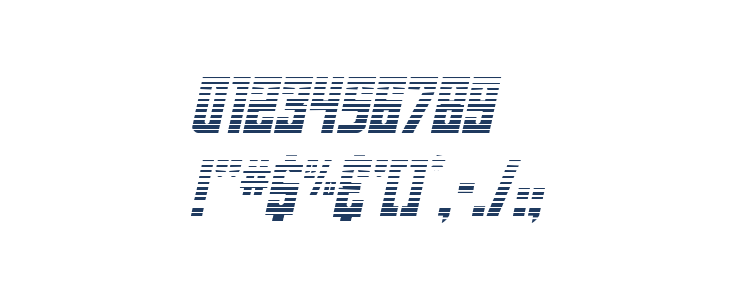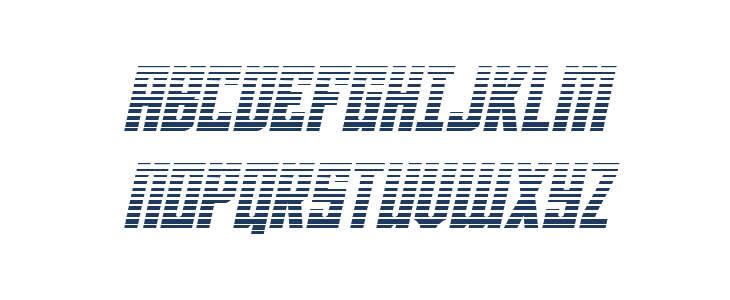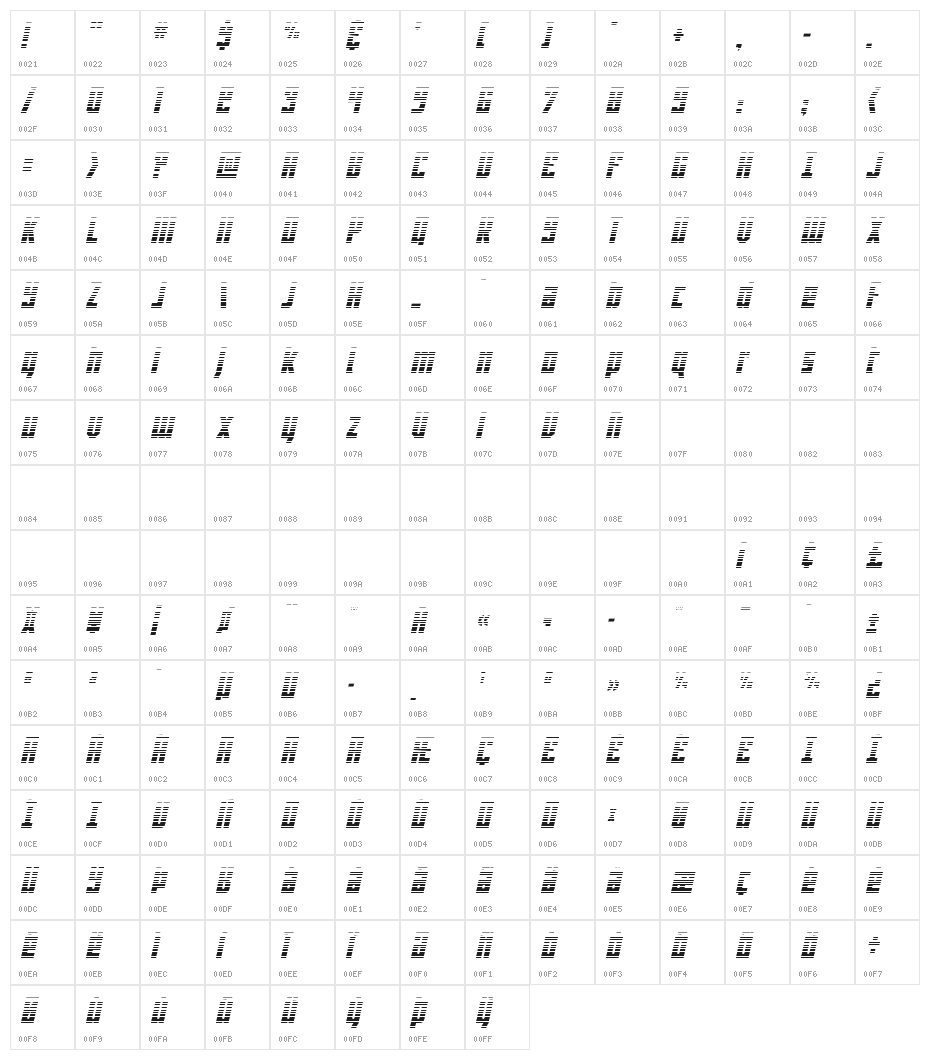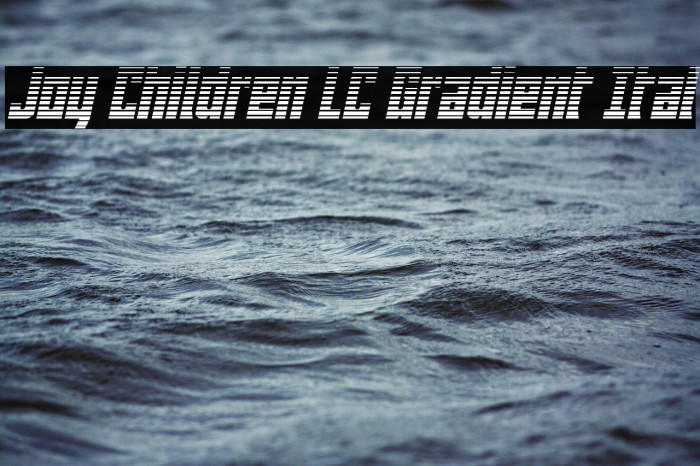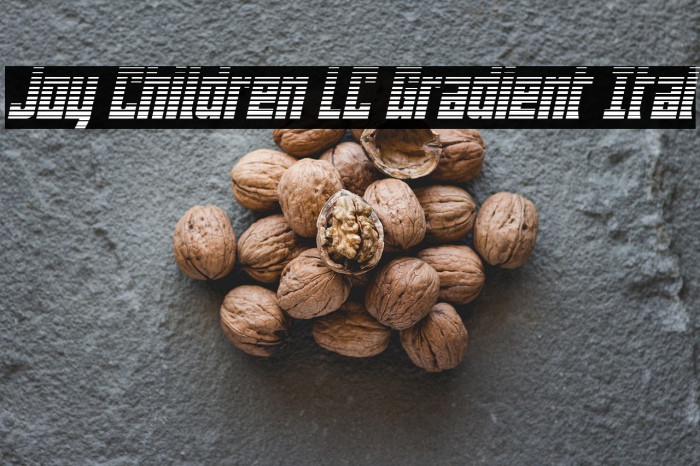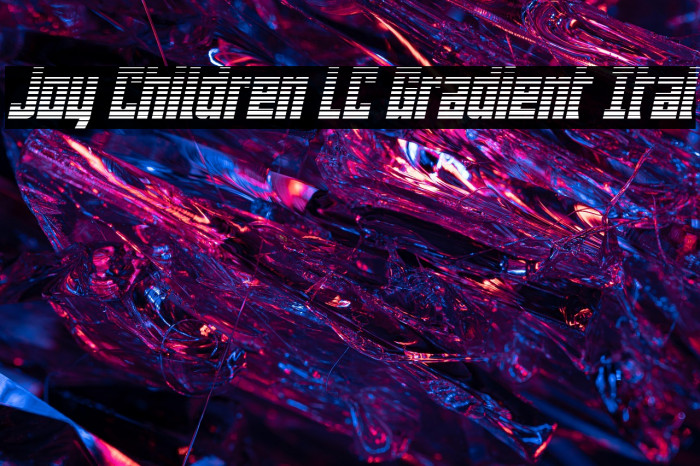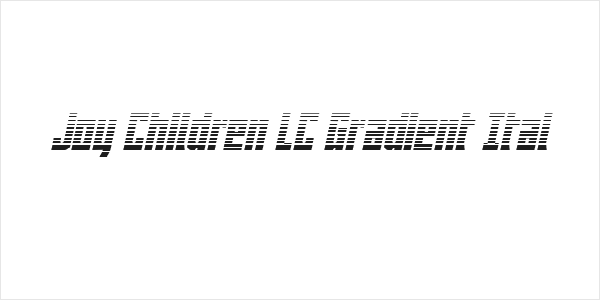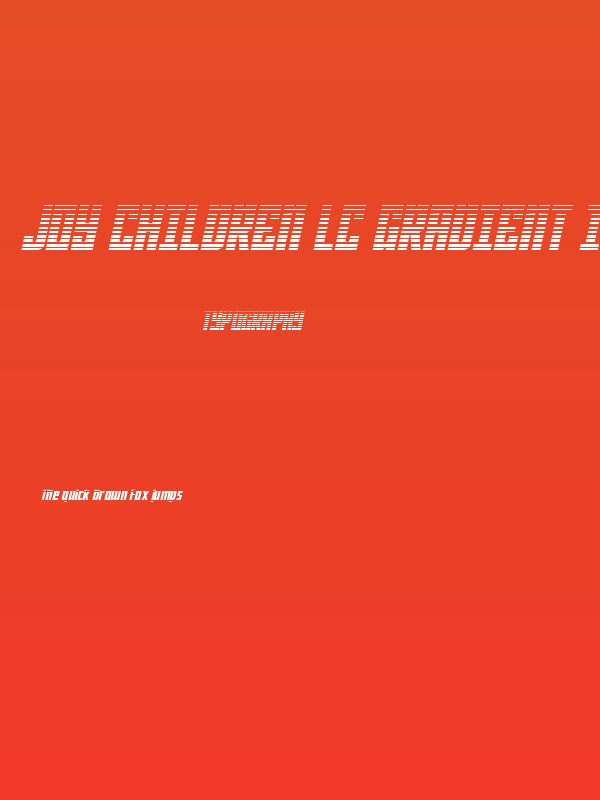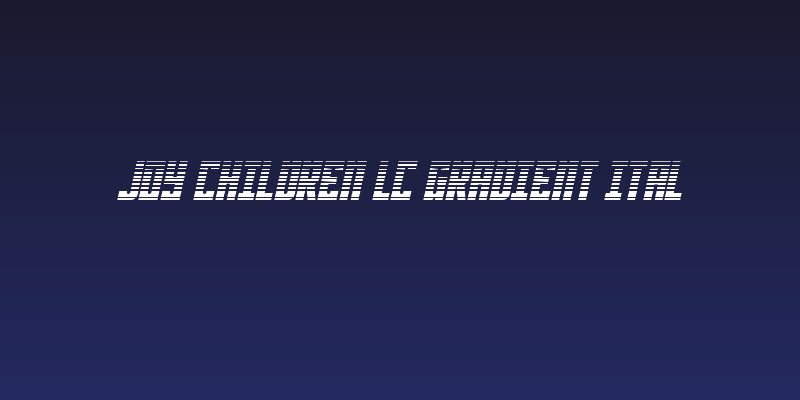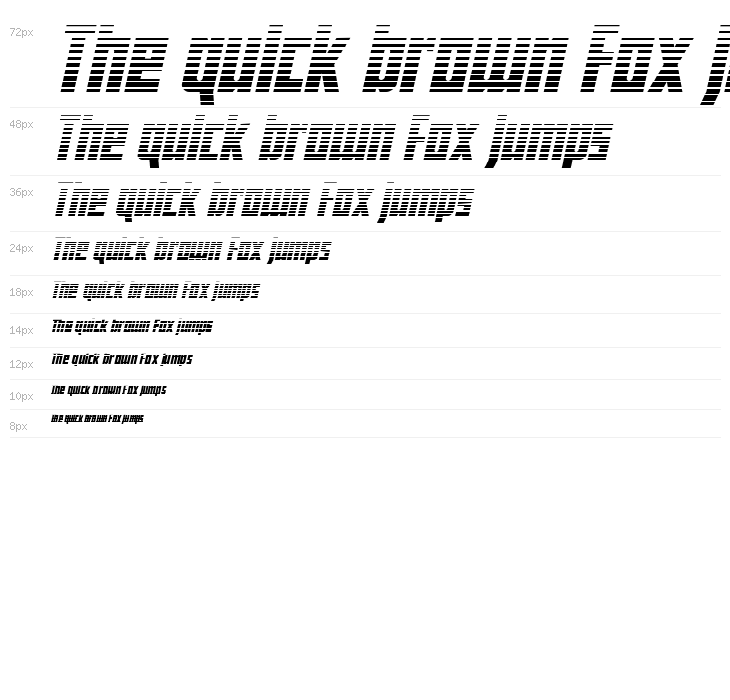
Joy Children LC Gradient Ital Font
Joy Children LC Gradient Ital Description
A stylized, italicized, striped font with a dynamic, slanted appearance, featuring uppercase and lowercase letters, numbers, and special characters.
| Overall Style | Modern, Dynamic |